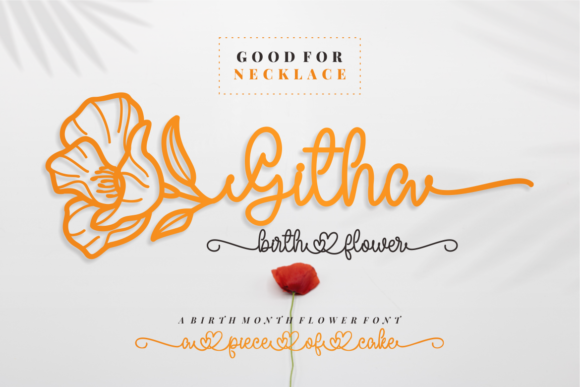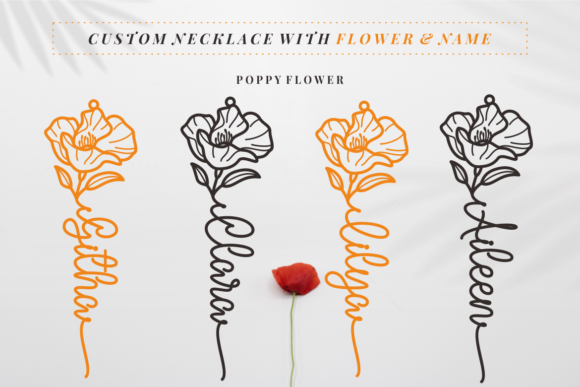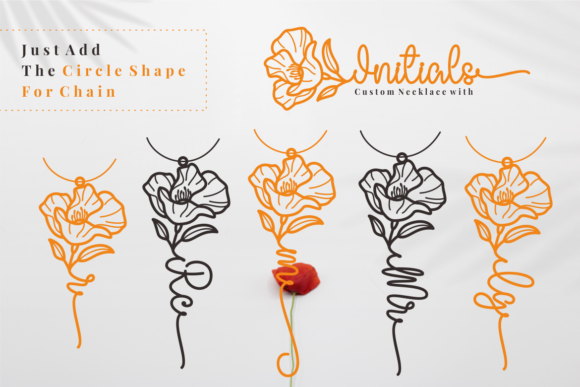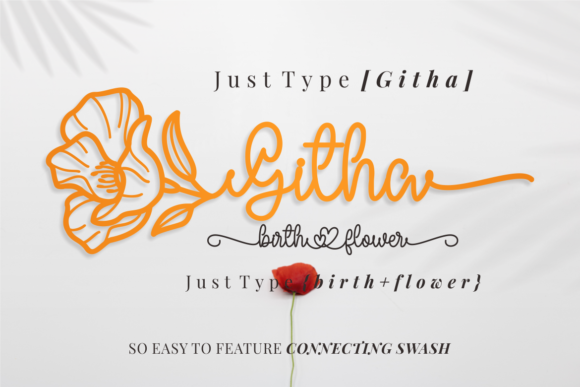
Githa Birth Flower Font
About the Githa Birth Flower Font
Presenting Githa Birth Flower Font, a unique and stylish typeface that will make your work stand out. Githa Birth Flower is a vintage styled script font carefully created with a touch of elegance. Whether you’re looking for fonts for Instagram or calligraphy scripts for DIY projects, this font will turn any creative idea into a true piece of art!
August birth flower
Githa Birth Flower excels in applications requiring a touch of vintage elegance, such as wedding invitations, logos for boutique businesses, or short, impactful headlines. Its delicate flourishes make it ideal for projects emphasizing a handcrafted or artistic feel. However, its intricate details make it unsuitable for body text or UI elements where readability is paramount. Avoid using it in long paragraphs or small sizes.
Pairing Githa Birth Flower with a clean sans-serif font like Lato for body copy creates a balanced contrast. For a more traditional feel, consider a complementary serif such as Playfair Display. A geometric sans-serif like Montserrat can also provide a modern counterpoint to the script’s vintage charm.
The overall personality of Githa Birth Flower is sophisticated and romantic, lending itself well to brands and projects aiming for a refined and feminine aesthetic.
Githa Birth Flower Font Example